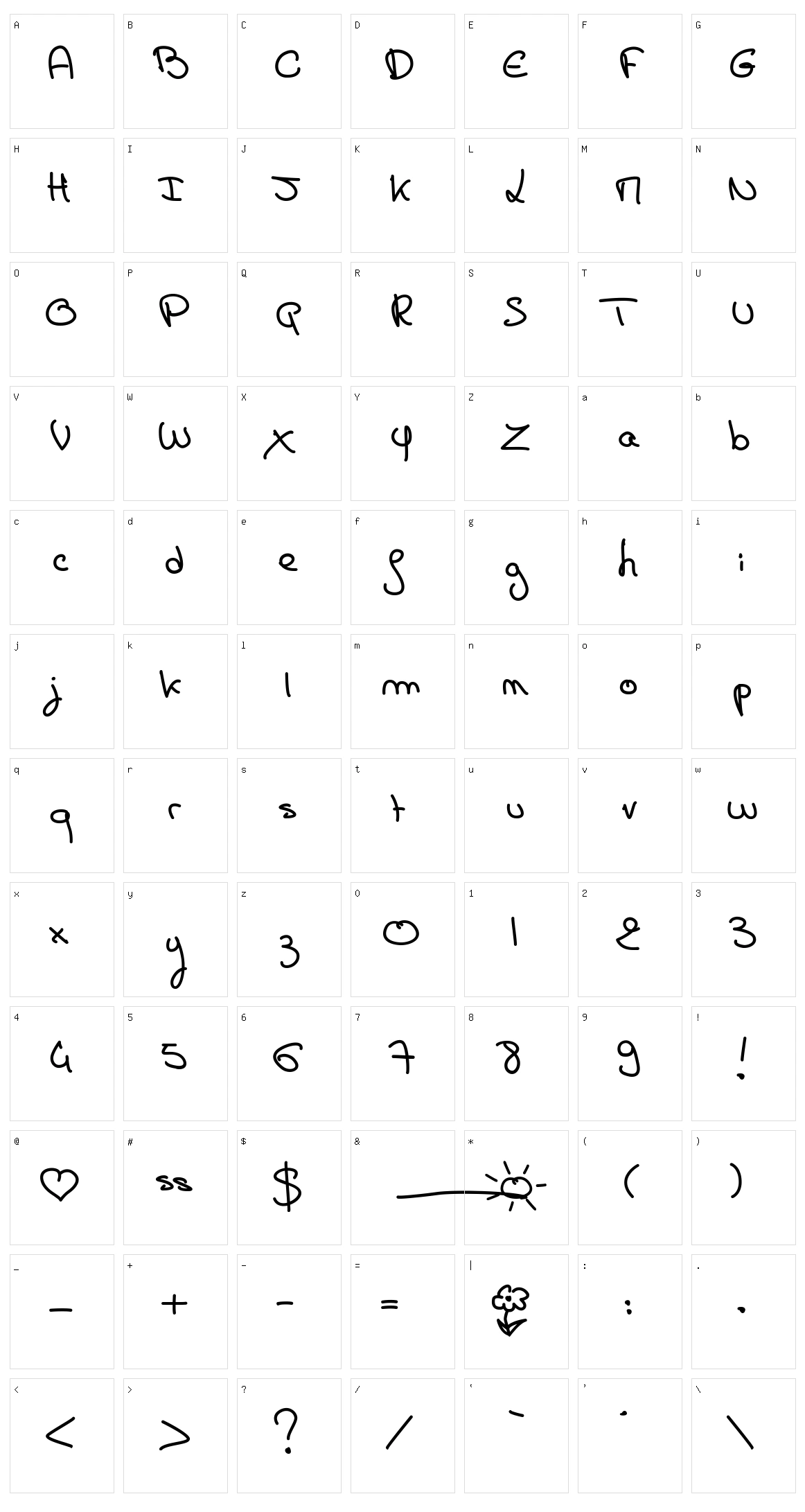
The free font Carte Postale is carefully designed by Qkila, showcasing a thoughtful balance of creativity and usability and falls under the Script font style. When you download the ZIP file, it contains only 56.75 KB of font files, making it lightweight and quick to download. Please review the license details below to understand permitted usage and distribution rights. If license information is not available, we recommend using this font for personal projects only or contacting the author directly for commercial usage permissions.